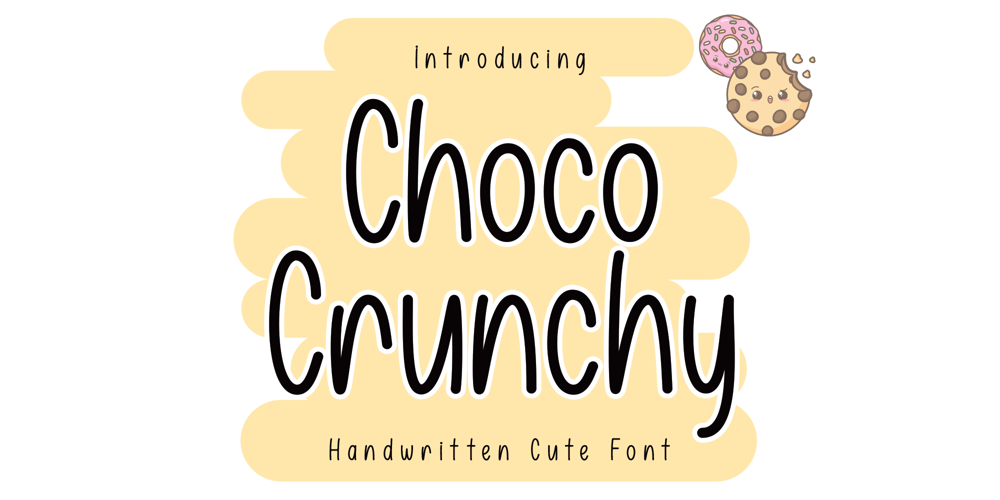
Choco Crunchy Font Family was designed by published by Dania Graphix Studio. Choco Crunchy contains 2 styles and family package options. Choco Crunchy is a fun and quirky handwritten font. It can easily be matched to an incredibly large set of projects, so add it to your creative ideas and notice how it makes them stand out!